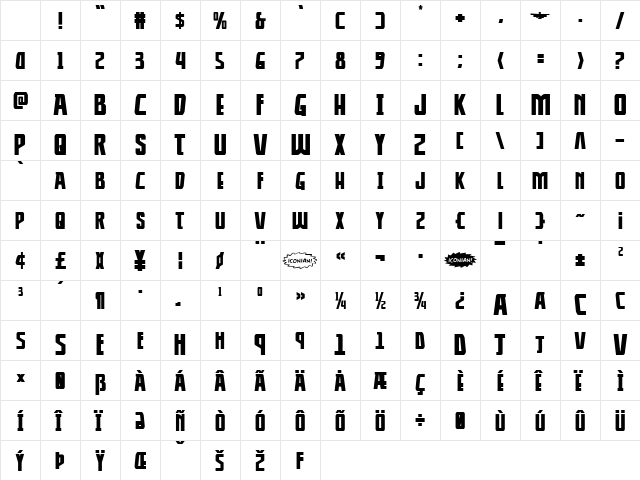
Complete Thunder-Hawk Drop Expanded glyph index. Displaying only characters natively supported by Thunder-Hawk Drop Expanded font.
Thunder-Hawk Drop is a composed and adaptable typeface that performs quietly and consistently across a wide range of design contexts.